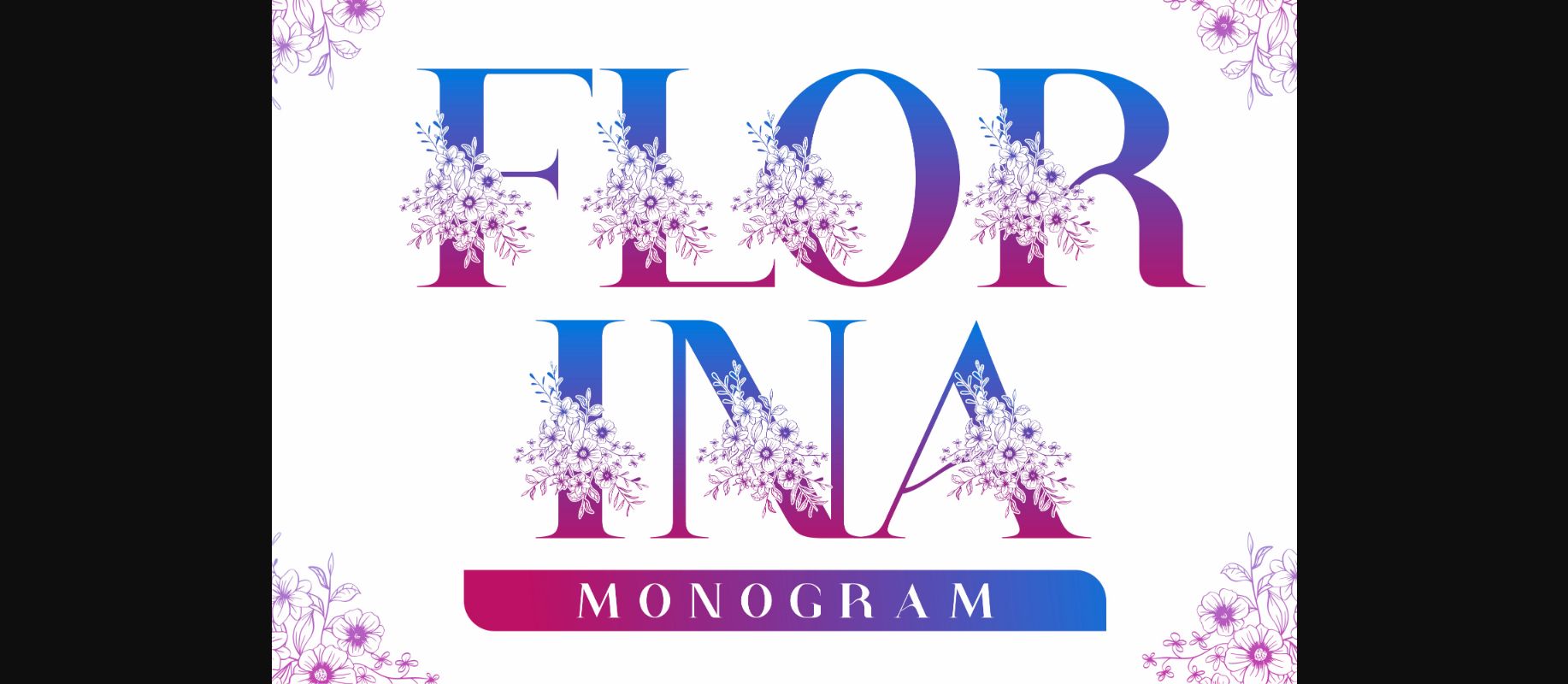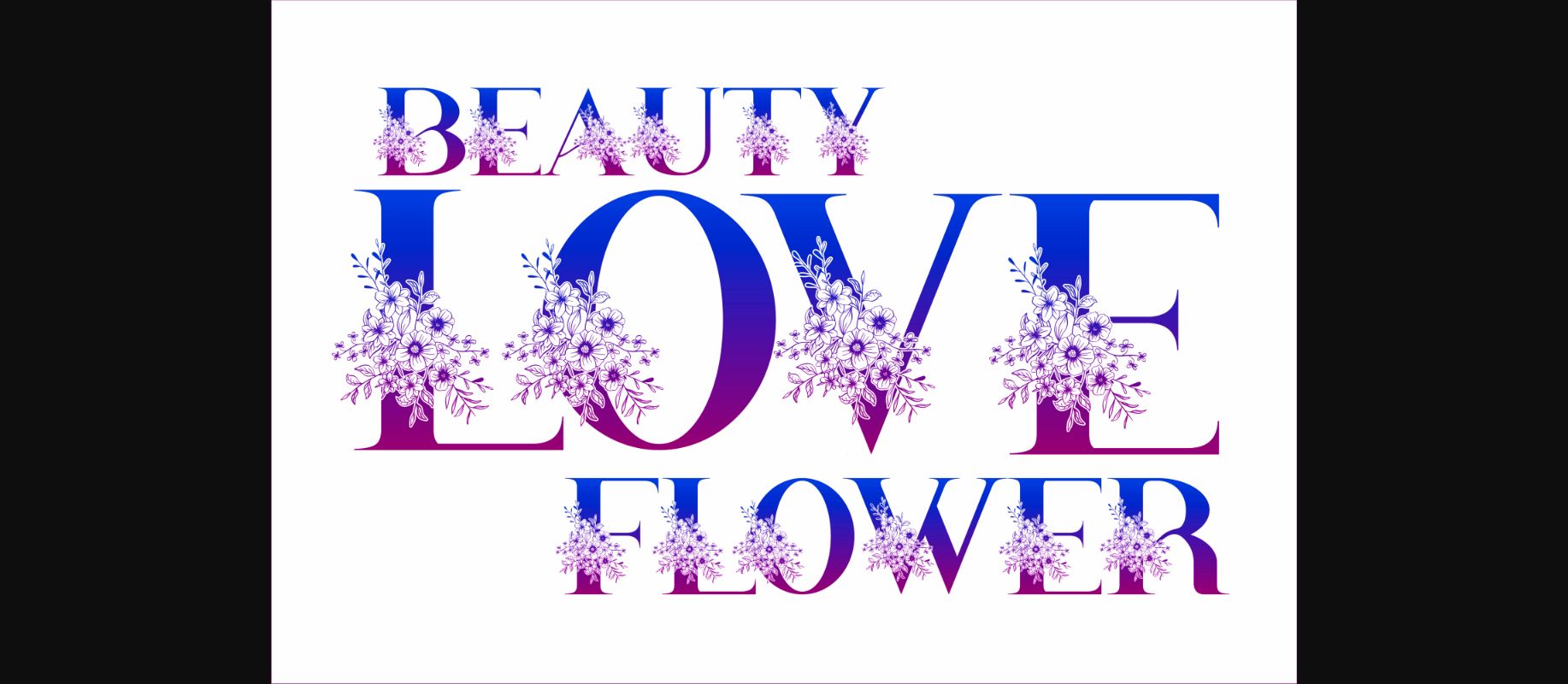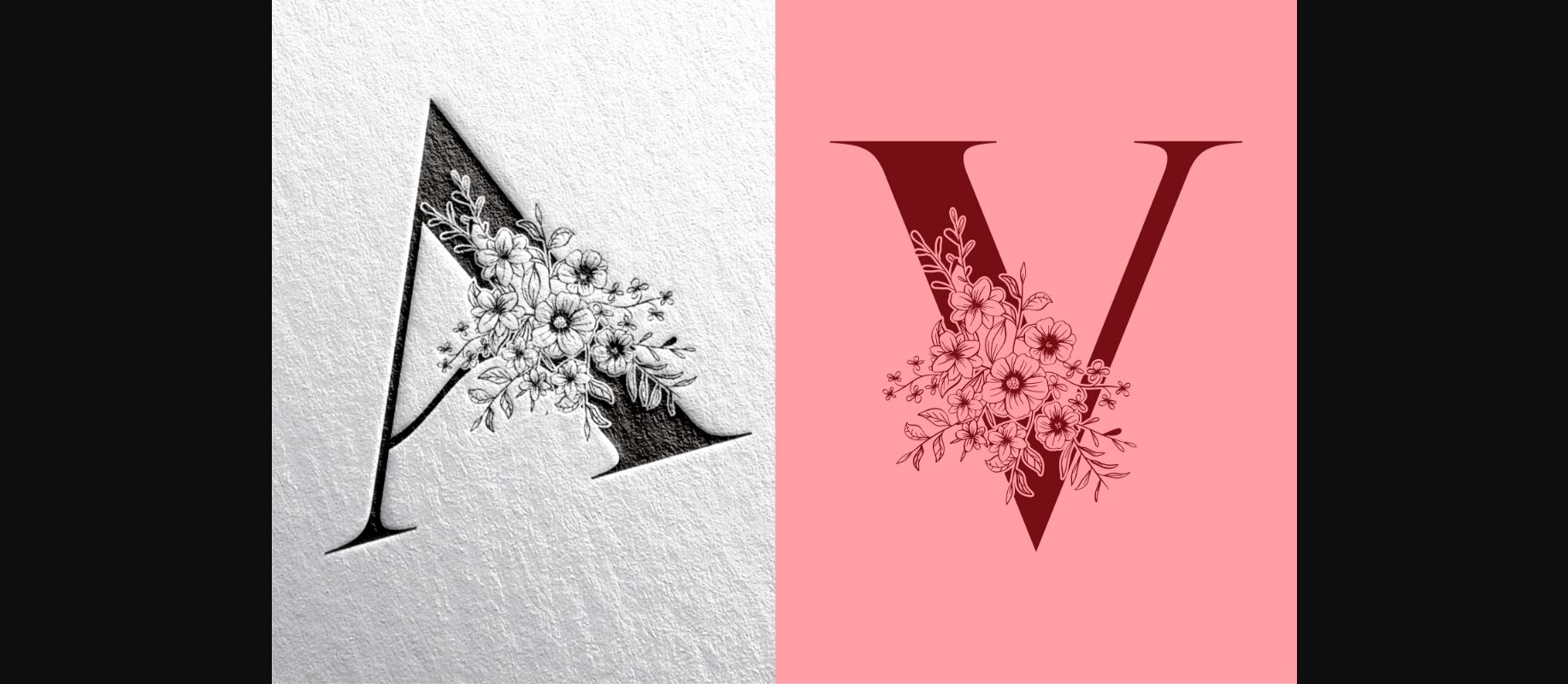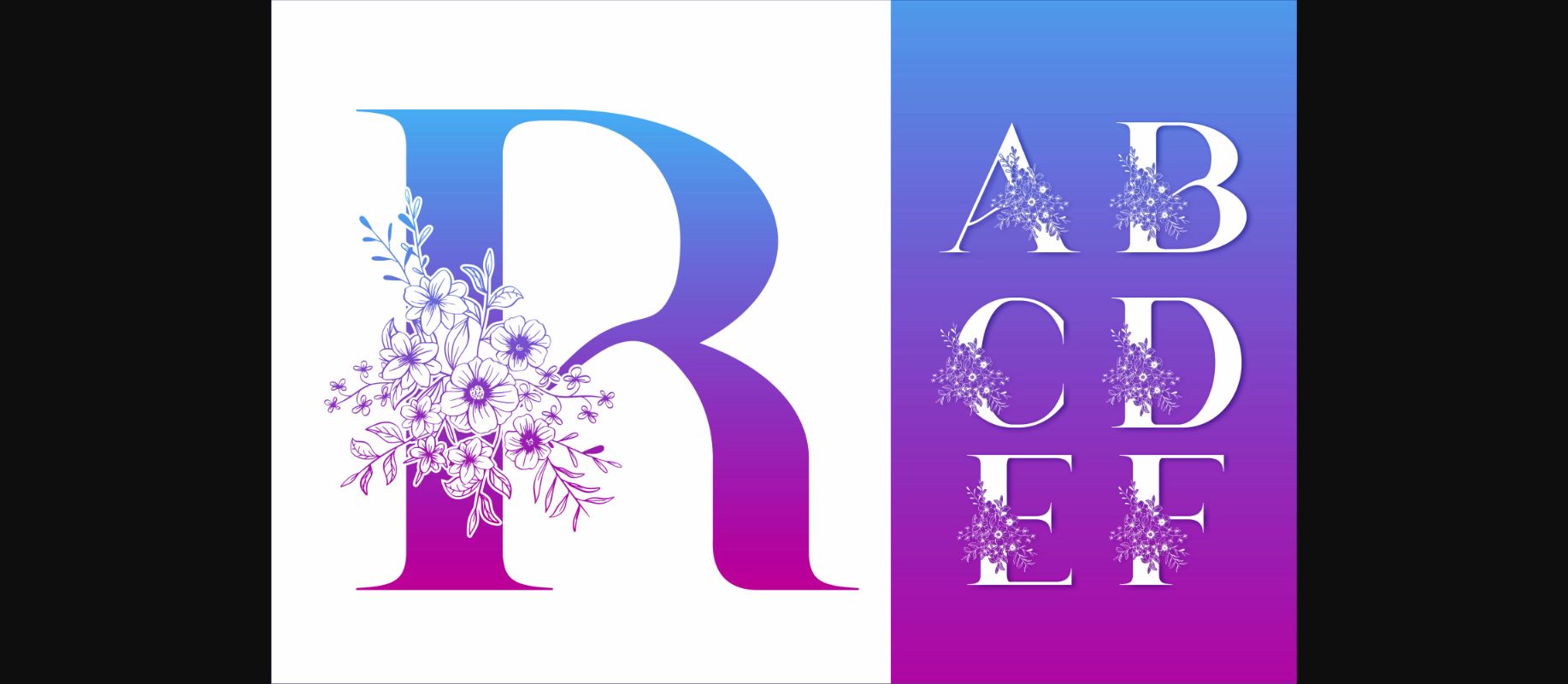
About Florina Monogram Font
Florina Monogram is a beautiful decorative font, with floral ornaments and plants making this font more stylish than ever. It looks stunning on wedding invitations, thank you cards, quotes, greeting cards, logos, business cards and every other design which needs a customized touch.